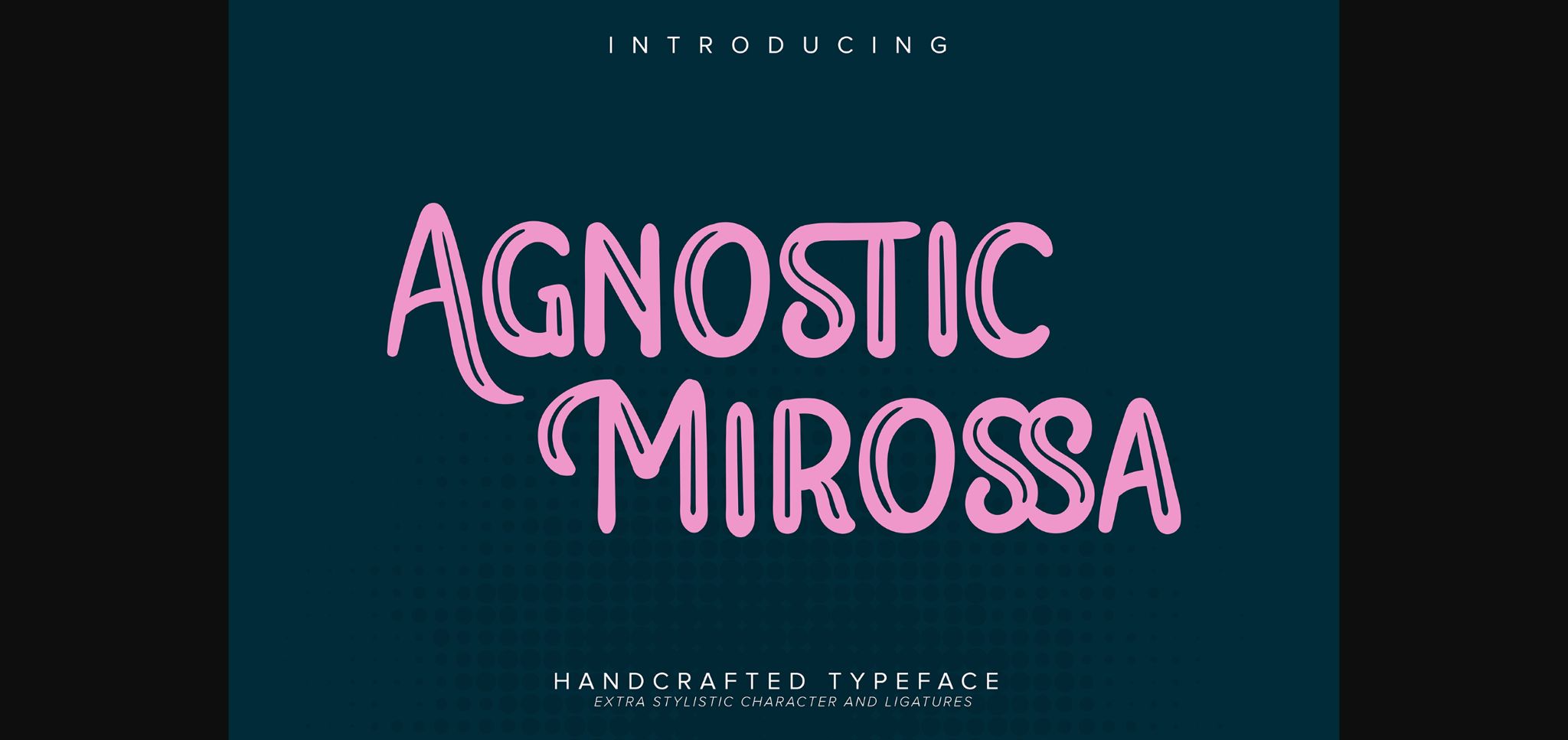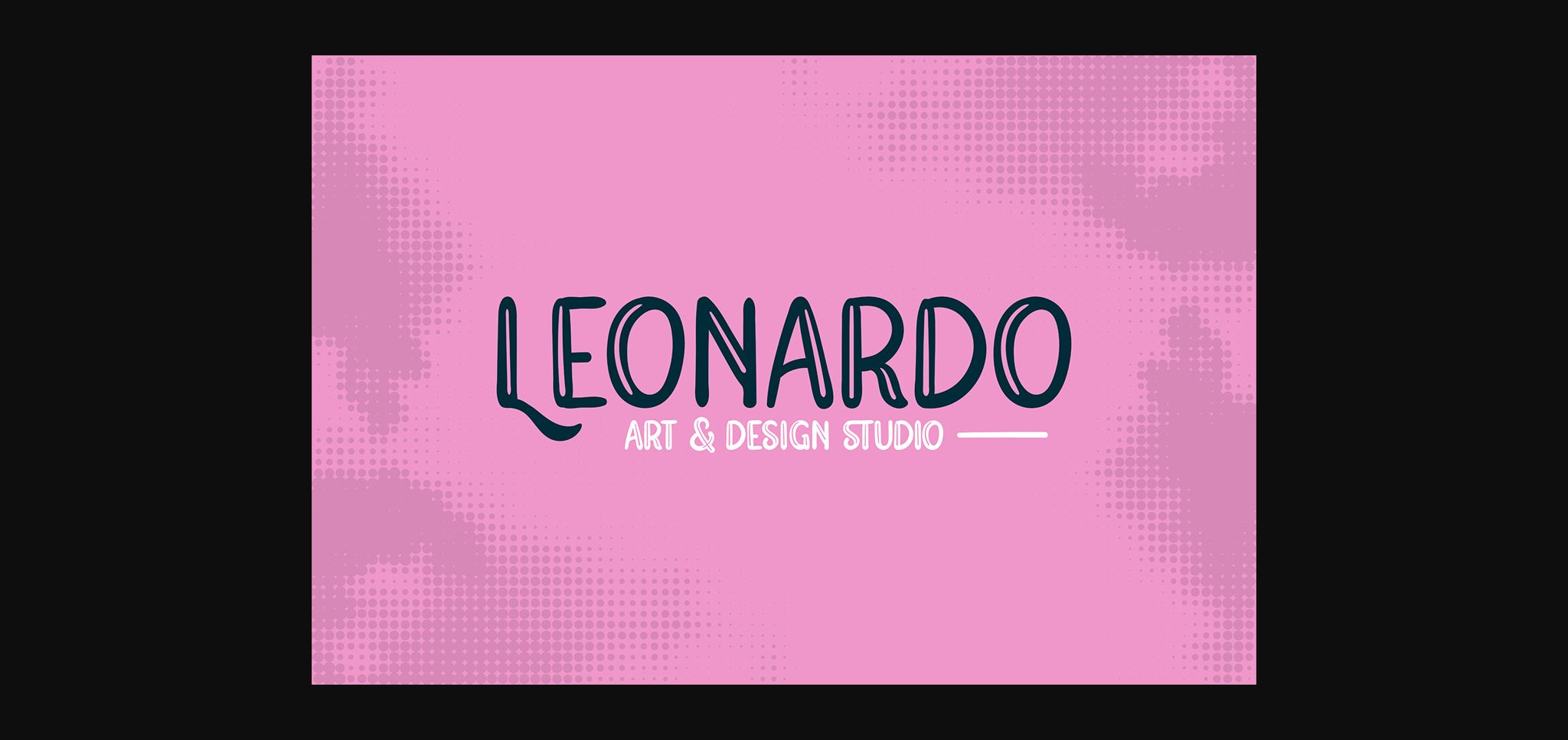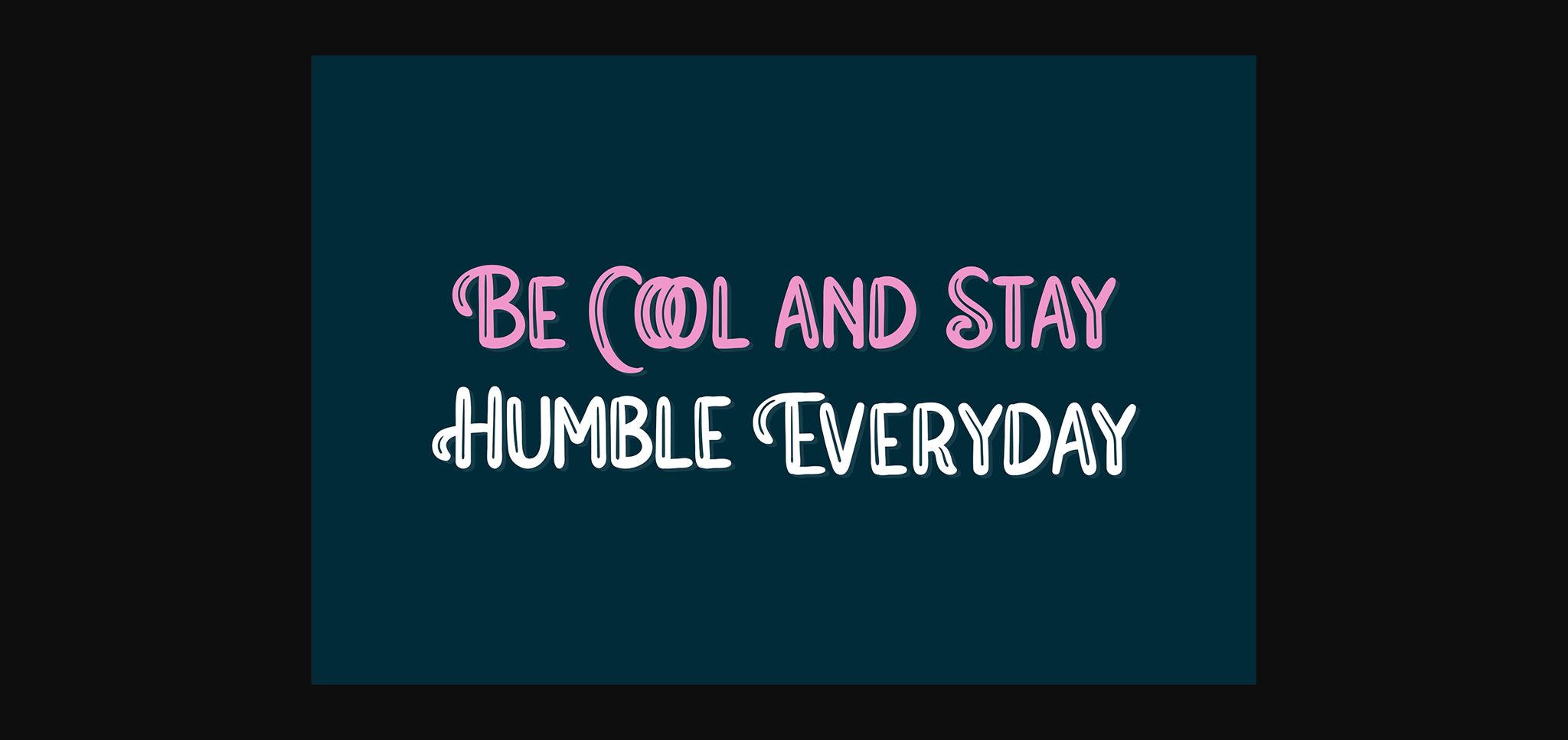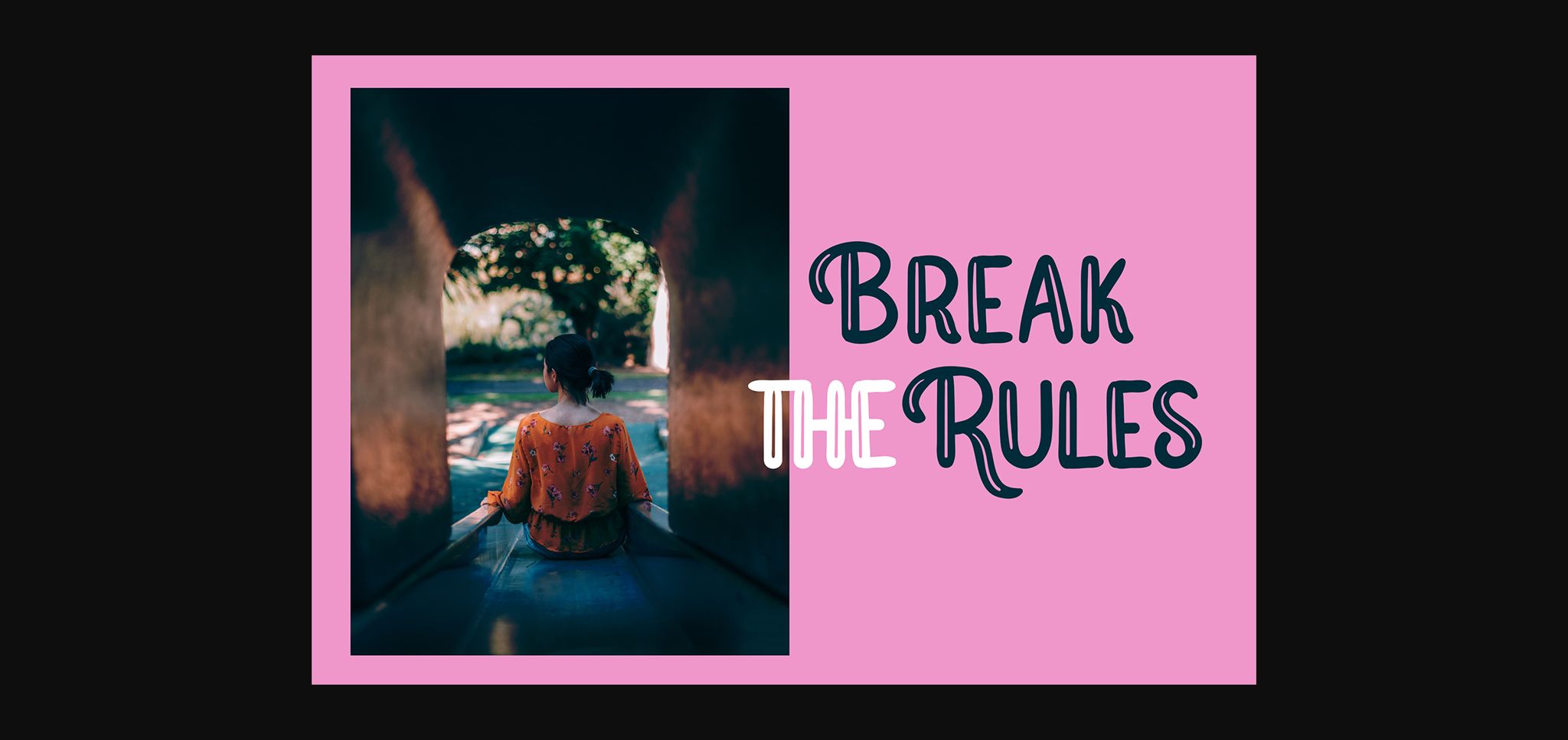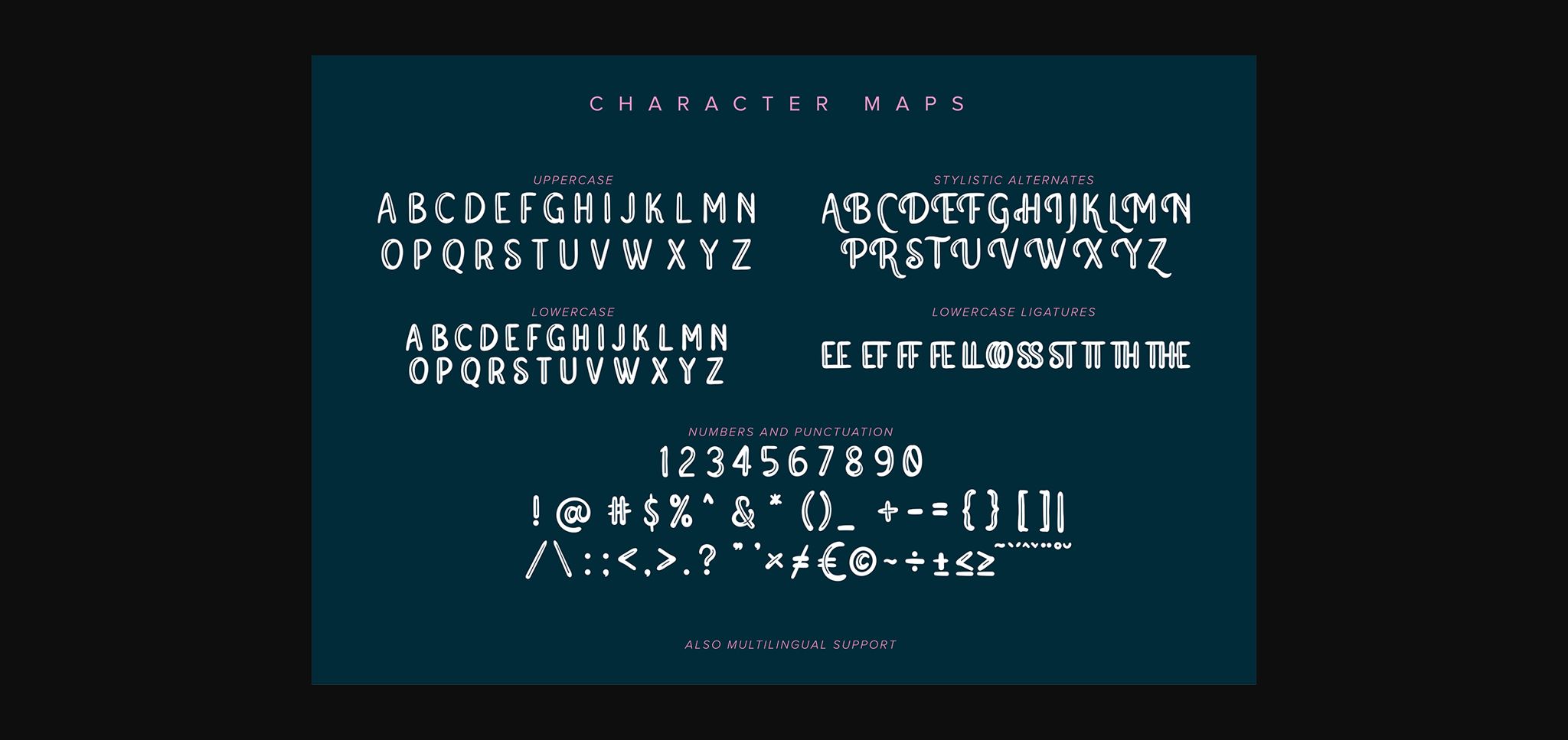
Agnostic Mirossa Font
About Agnostic Mirossa Font
Agnostic Mirossa is a modern sans serif font, carefully handcrafted to become a true favorite. It will elevate a wide range of design projects to the highest level, be it branding, headings, wedding designs, invitations, signatures, logos, labels, and much more!